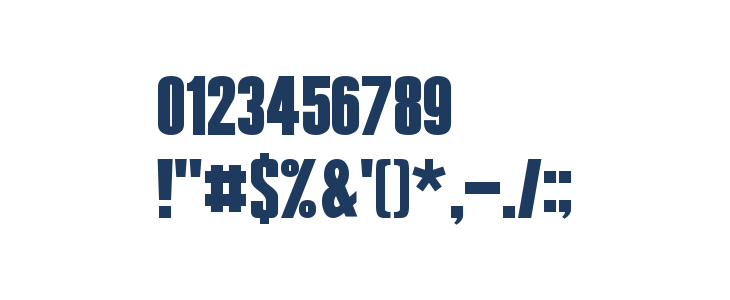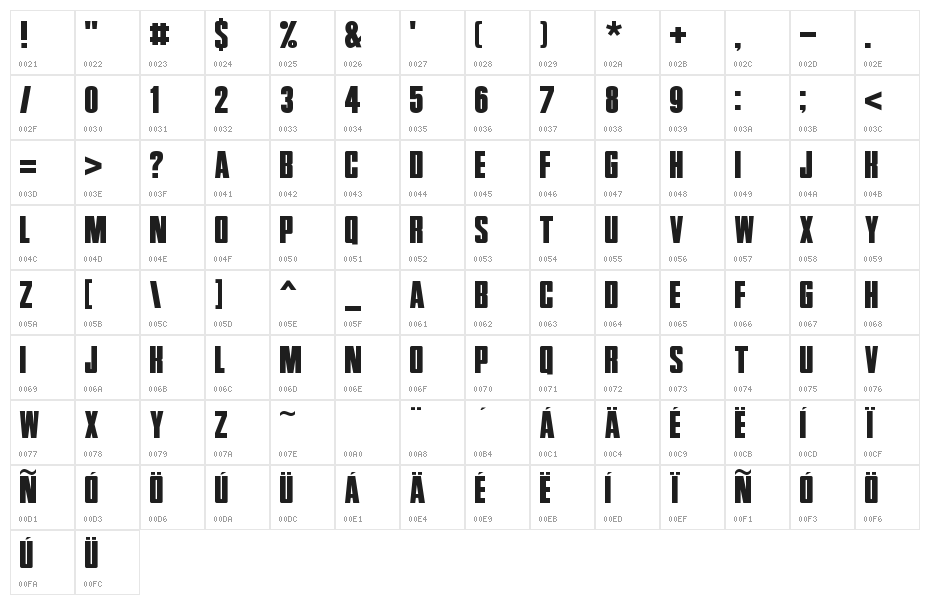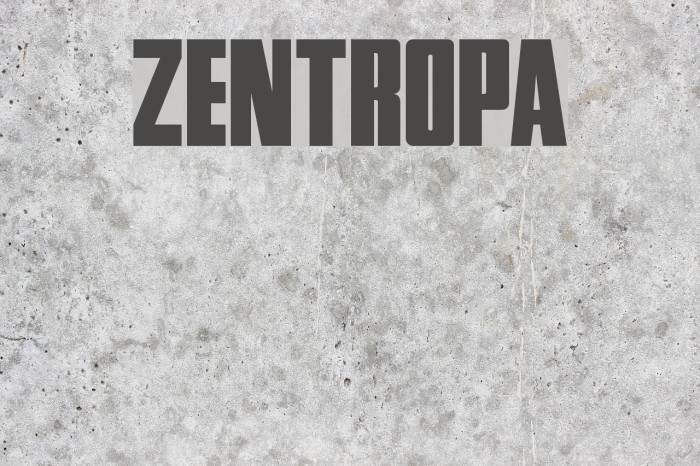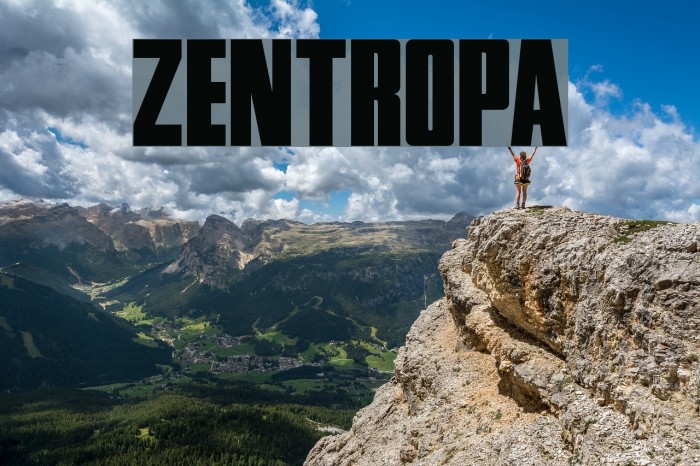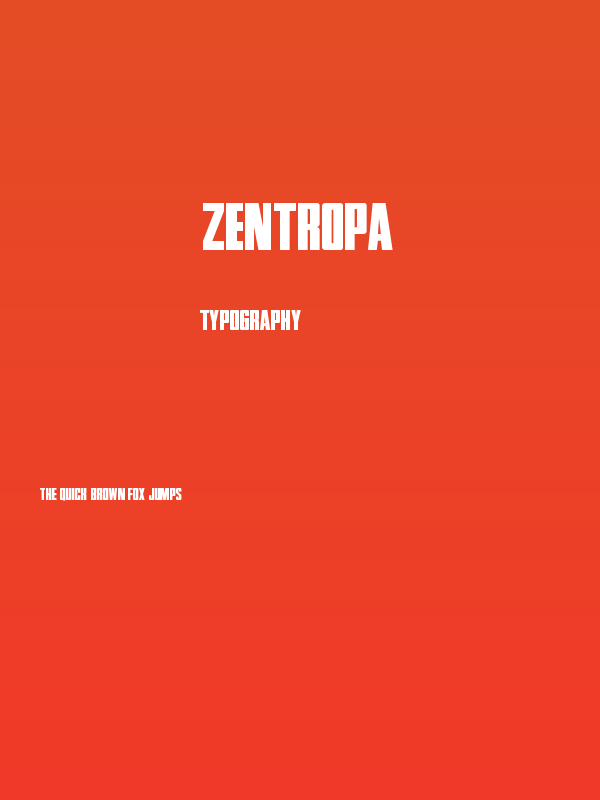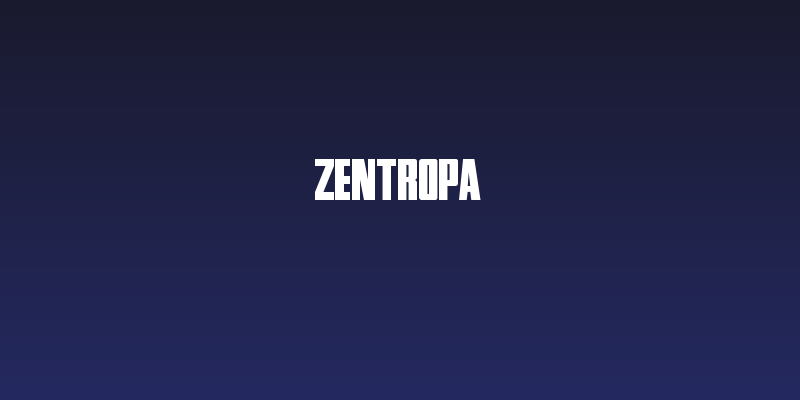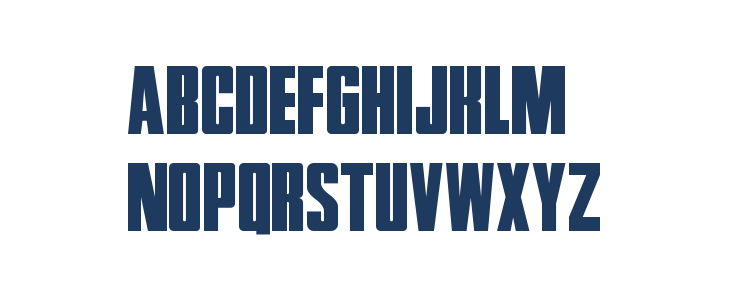
Zentropa Font
Zentropa Description
This font is a bold and impactful typeface with a strong presence. The characters are blocky and robust, featuring thick strokes that convey a sense of power and authority. The uppercase letters are particularly striking, with a uniform height and width that create a cohesive and balanced look. The numerals and special characters maintain the same bold style, ensuring consistency across all elements. This typeface is well-suited for making a statement, with its high contrast and solid structure. It is designed to grab attention and leave a lasting impression.
Proposed ProjectsIdeal for posters, headlines, branding, and any project requiring a strong visual impact.